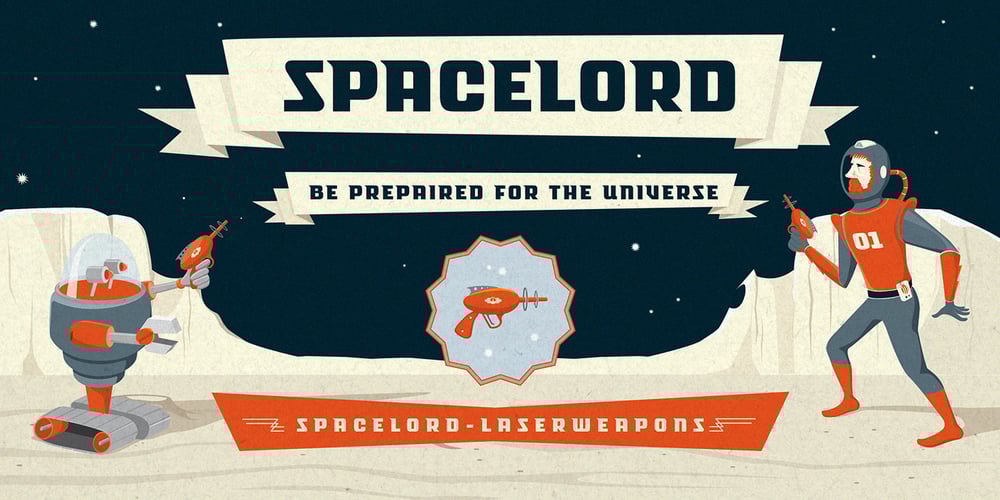
Spacelord Font Family was designed by Stefan Krömer, Gunnar Link and published by Die Typonauten. Spacelord contains 5 styles and family package options. Spacelord is inspired by vintage toys from the 1950s and 1960s. It refers to the box art of robots, spaceships, x-ray-guns and other cosmic trash treasures of this golden science fiction age. Aboard the lord: four, three, two, one, zero!